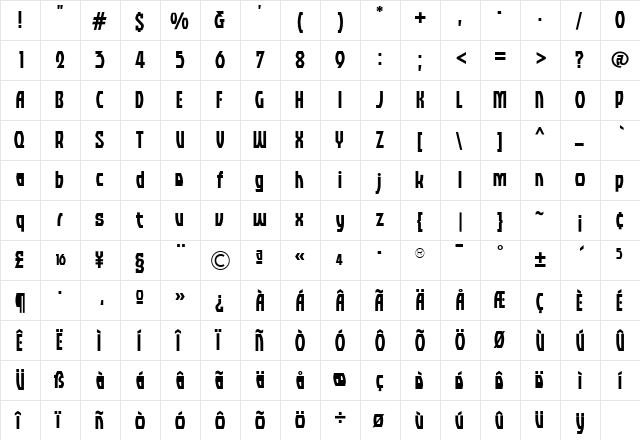
TFAkimbo Bold
Design Context for TFAkimbo Typeface
TFAkimbo is a composed and adaptable typeface that performs quietly and consistently across a wide range of design contexts. Its bold stroke weight gives it real presence on the page.